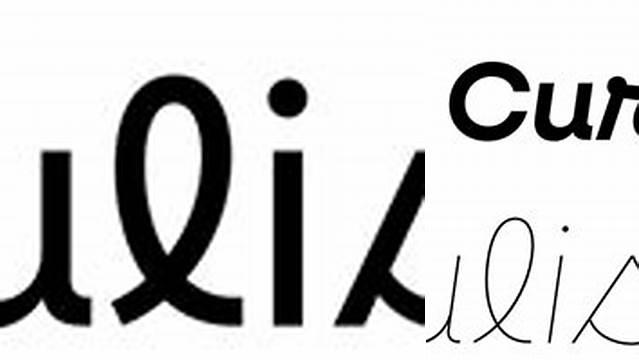
Hey everyone! Are you on the hunt for a beautiful and elegant font to spice up your designs? Well, look no further! Today, we're diving deep into the world of typography and exploring the Neulis Cursive Regular font, and the best part? You can snag it for free! This article is your ultimate guide to everything Neulis Cursive Regular, from its features and how to download it to where you can use it in your projects. So, buckle up, and let's get started on this typographic adventure! The Neulis Cursive Regular font is a stunning typeface that exudes sophistication and charm. Its flowing strokes and graceful curves make it perfect for various design projects, from invitations and logos to social media graphics and more. So, if you're ready to add a touch of elegance to your work, keep reading to discover how you can get your hands on this fantastic font without spending a dime. Whether you're a seasoned designer or a beginner, I'm sure you'll find this font to be a valuable asset in your font library. Let's get started! I'm here to guide you every step of the way.
Discovering the Allure of Neulis Cursive Regular Font
Alright guys, let's talk about why Neulis Cursive Regular font is so special. This font isn't just another typeface; it's a work of art. Its design captures the essence of classic cursive writing, giving it a timeless appeal. What sets it apart? Well, the elegance and readability are top-notch. Unlike some overly stylized cursive fonts that can be difficult to read, Neulis Cursive Regular strikes a perfect balance between beauty and functionality. The font features smooth, flowing lines that create a sense of movement and fluidity, perfect for making your text stand out. Think about it: you need a font that is versatile enough to be used in a variety of projects. This font can be used in all sorts of projects. Imagine it on wedding invitations, creating a sense of romance, or for a logo, creating a brand that looks fancy. Its versatility makes it a valuable asset. It can also be used in personal projects, like creating handwritten notes or greeting cards. But its beauty is more than just aesthetics; it's about how it makes your work feel. The font adds a personal touch, conveying warmth and a feeling of intimacy. This makes your designs more appealing and engaging for your audience. I'm a big fan of the feel of the font, and I'm sure you will too! The font's legibility is one of its major advantages. The letters are designed in a way that is easily distinguished from each other, ensuring that your message can be easily understood by your audience. It is easy on the eyes and ensures that the text remains clear, even when used in longer paragraphs. This is very important in ensuring that your design communicates effectively. The creators made sure the details of the font were on point. In short, the Neulis Cursive Regular font is a great choice, especially if you are looking for beauty, elegance, and readability. It's not just a font; it's an experience, and it can really transform your design projects!
Neulis Cursive Regular: A Font for Every Occasion
This font has found its way into so many applications! The beauty and versatility of Neulis Cursive Regular make it suitable for various design projects. Let's look at how it can be used, starting with invitations. Its elegant curves make it perfect for wedding invitations, birthday parties, and other special events, adding a touch of class and sophistication. The cursive style conveys a sense of formality and grace, making the invitations stand out. The font is also very useful for branding. Businesses can use it in logos and other marketing materials, creating a brand image that is fancy and elegant. The flowing letters give a perception of luxury and attention to detail, which can attract customers who value quality and style. In the digital world, it can be used in social media graphics and website headers. It can be used for eye-catching headlines and quotes, making your content more attractive and shareable. Its legibility ensures that your message remains clear, even when used in a social media context. Then there are personal projects like scrapbooking, journaling, and creating handmade cards. The font can add a personal touch, making your projects feel more special and unique. This can also be a great addition to your own work. The font's ability to convey emotion and personality makes it a perfect choice for anyone looking to make their creations stand out. From formal events to everyday use, Neulis Cursive Regular is a versatile choice. It's more than just a font; it's a tool that can help you express creativity. With this font, you can transform your creative work, no matter what the project is. Try using it in your next project!